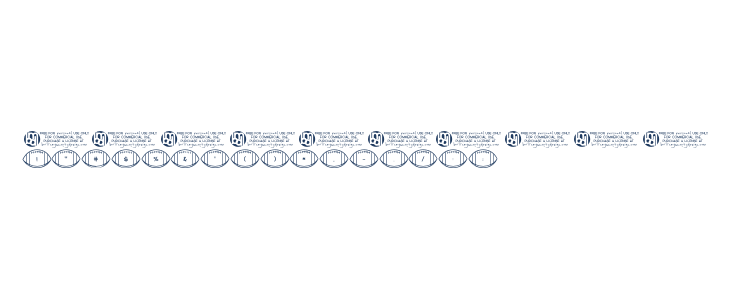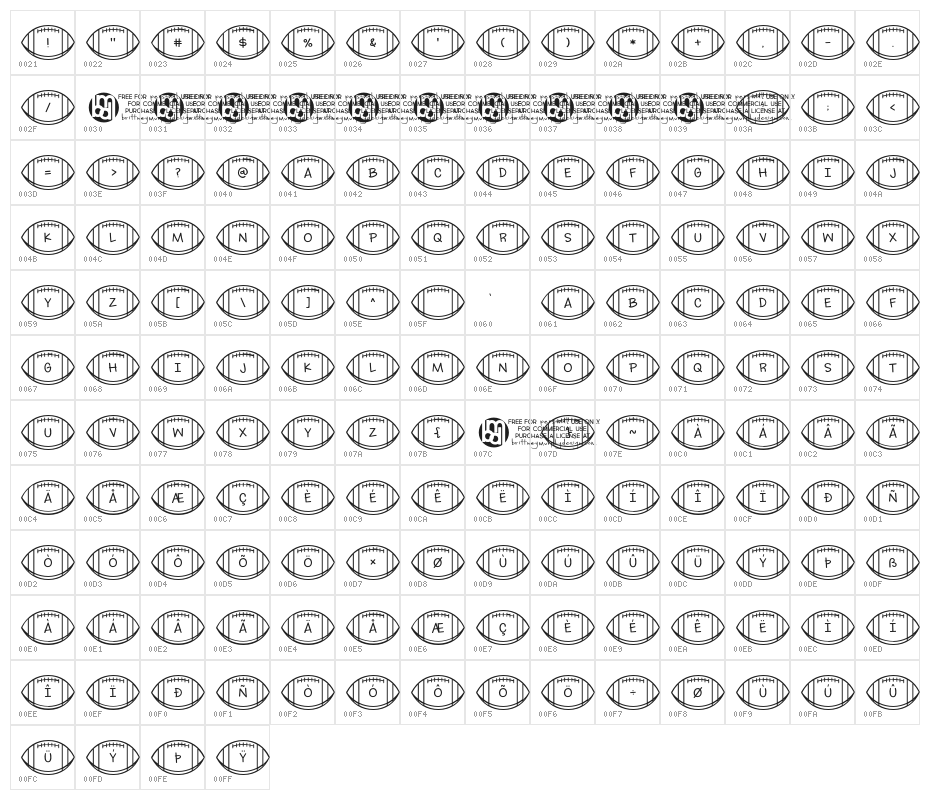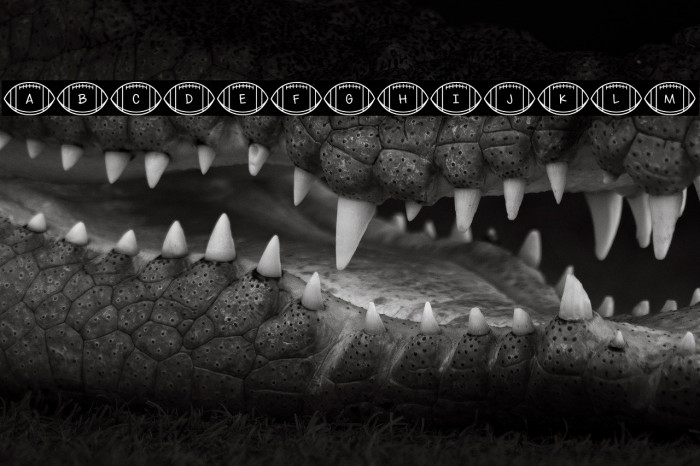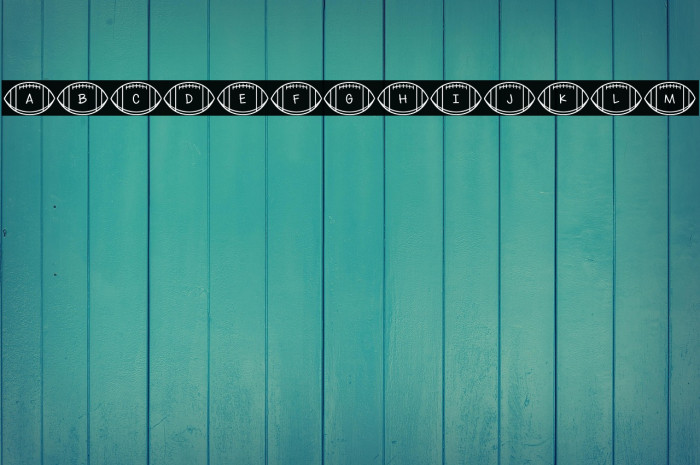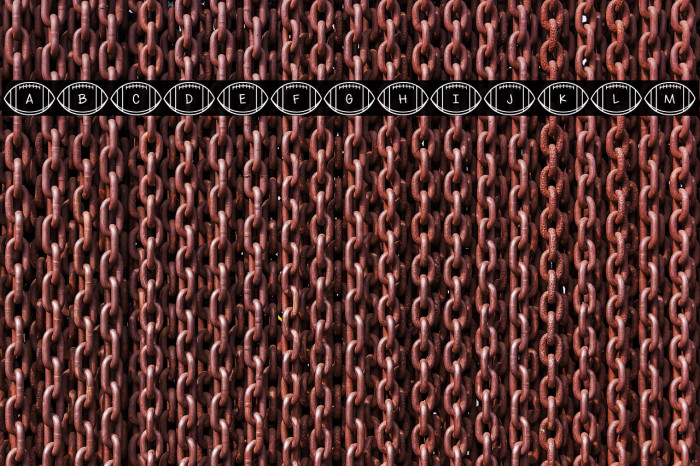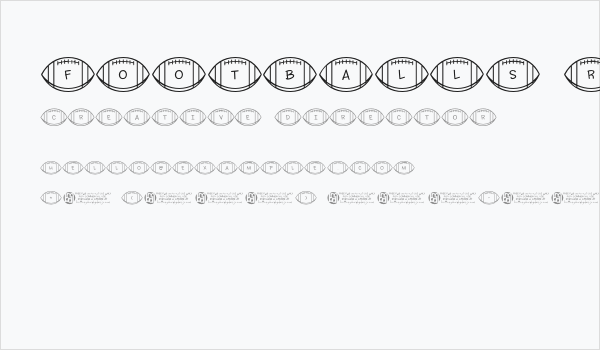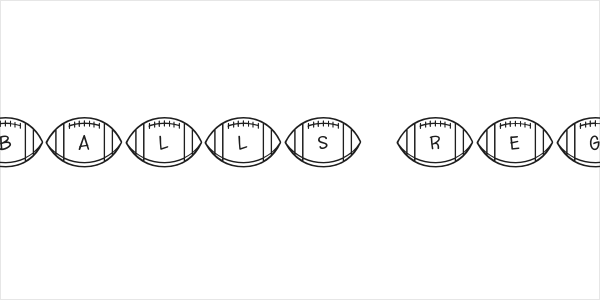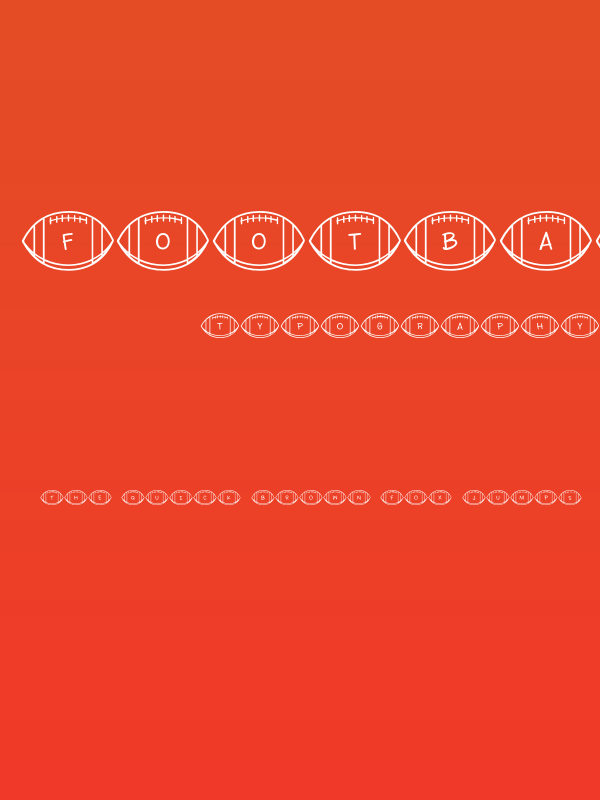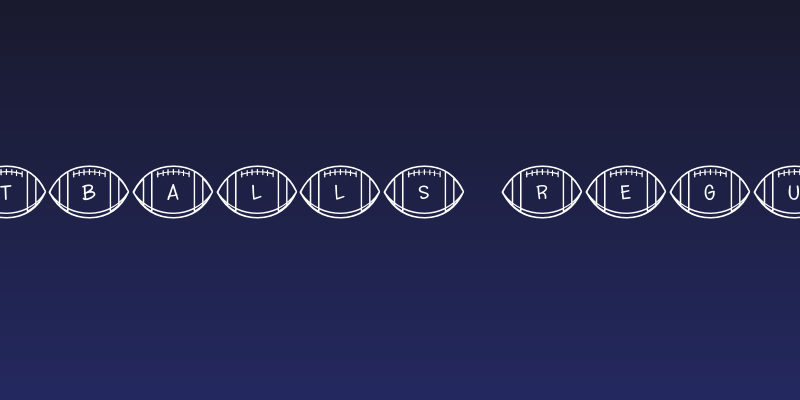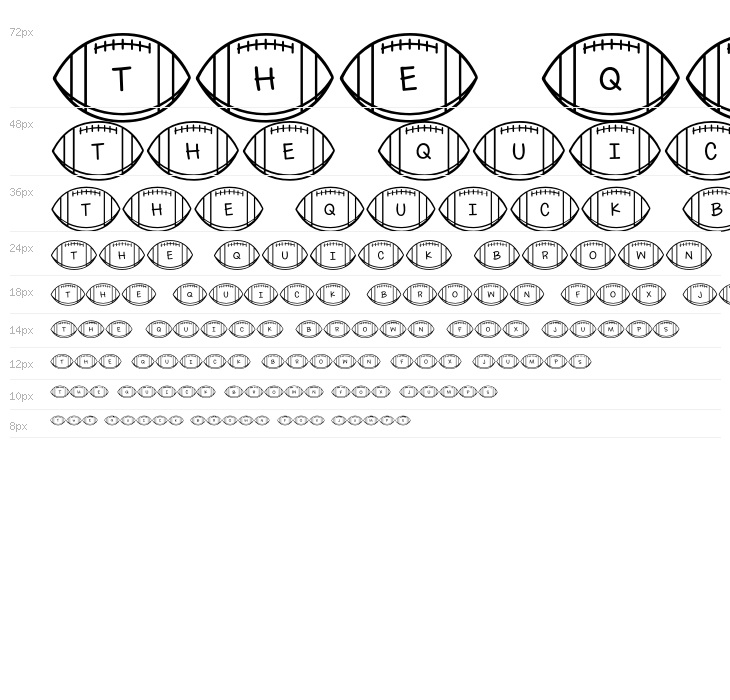
Footballs Regular Font
Footballs Regular Description
This playful and thematic font features characters enclosed within the shape of a football, making it ideal for sports-related designs. Each letter and number is centered within a football outline, giving a unique and cohesive look. The font maintains a consistent style across uppercase, lowercase, and special characters, ensuring uniformity. The design is both decorative and functional, capturing the essence of sports enthusiasm. The characters are bold and clear, making them easily readable while still maintaining a fun and engaging appearance. This font is perfect for projects that aim to convey energy and excitement, particularly in contexts related to sports, games, or events.
| Proposed Projects | Sports event posters, game invitations, team merchandise, children's sports books. |